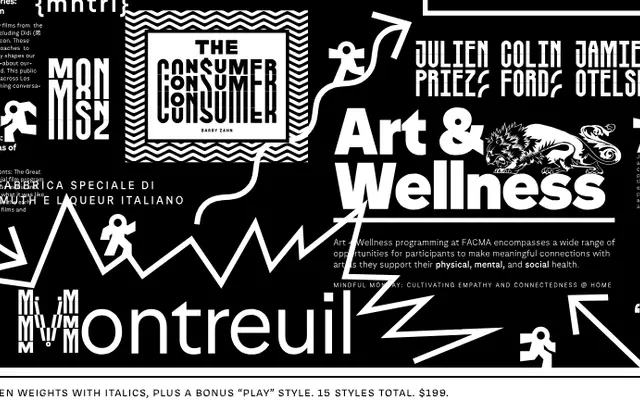
Montreuil
OH no Type · Julien Priez, James Edmondson, Colin M. Ford, Jamie Otelsberg · 2025
A grotesque sans with a subtle humanist inflection, drawn over fifteen years as a collaboration between OH no Type and French calligrapher-designer Julien Priez, issued in seven weights with italics and an experimental modular Play style.
Conceived after James Edmondson persuaded Priez to approach a grotesque despite his calligraphic background, the family carries just enough personality in its lowercase a and t to distinguish it from generic grotesques without compromising legibility. Fifteen styles in total cover everything from logotype to extended text setting, with the single-style Play variant offering a modular kit of parts for experimental composition. The variable font covers the full weight range, and a generous OpenType feature set includes small caps, multiple figure sets and case-sensitive punctuation.
Described explicitly as a grotesque sans, drawn by a calligrapher with a subtle humanist flavour in the lowercase letterforms, particularly the a and t, which keeps it from being a pure geometric or neo-grotesque.